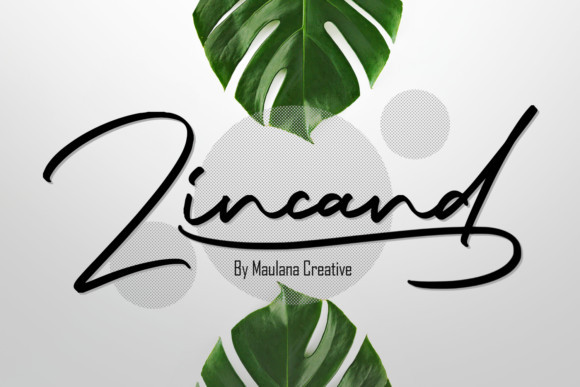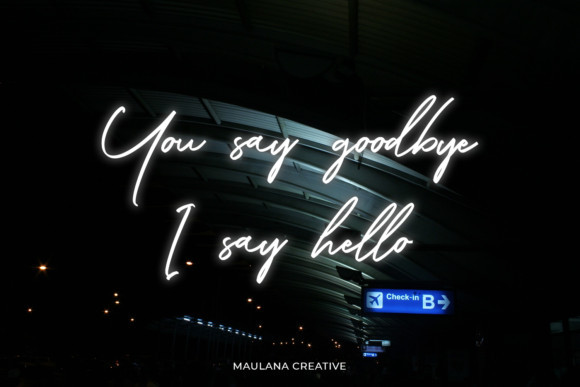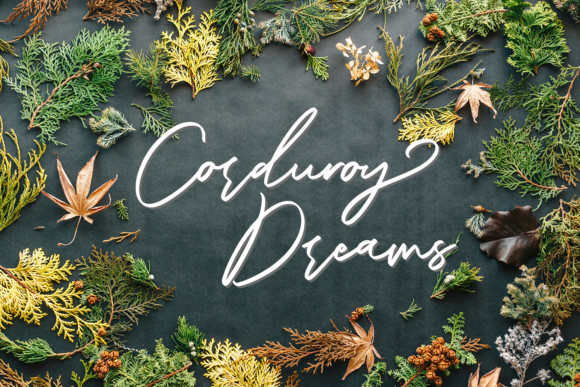
Zincand Font
Zincand is a delicate and beautiful paint brushed handwritten font, described by a refined touch. Fall in love with its distinct and timeless style and use it to create spectacular designs!